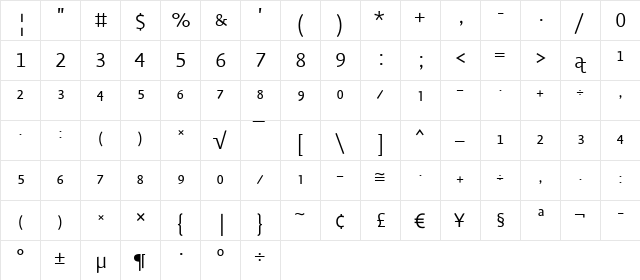
Profile Light
Design Context for Profile Typeface
Profile takes a measured approach to typography — its balanced proportions and neutral character make it a reliable workhorse for both digital and print work. Its slender proportions lend an understated elegance to any composition.